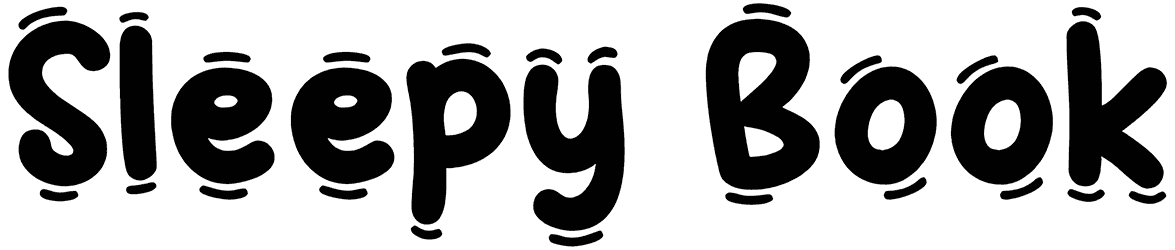
Sleepy Book Font
The whole point of using a comic font like this one is to convey a soft and playful vibe to followers. Adorned letters of Sleepy Book show a kind of bold style that can be a nice help to capture interest. With almost full characters, this free font will adorn words of your projects such as t-shirts, signs, school flyers, etc.